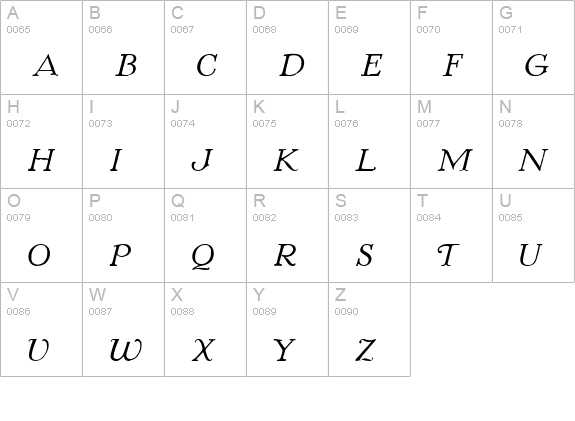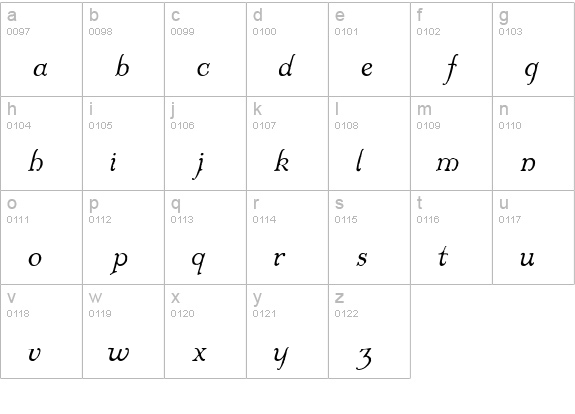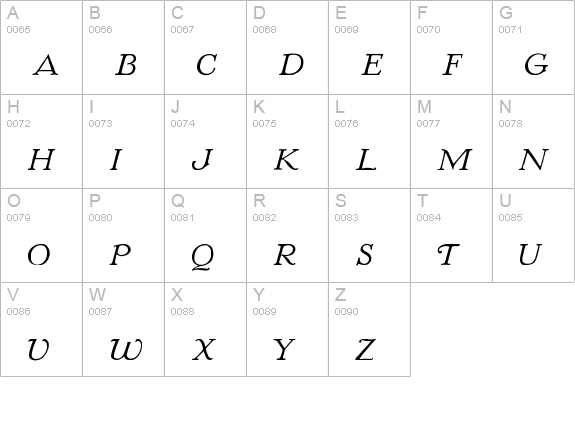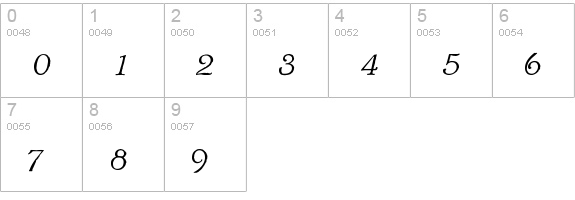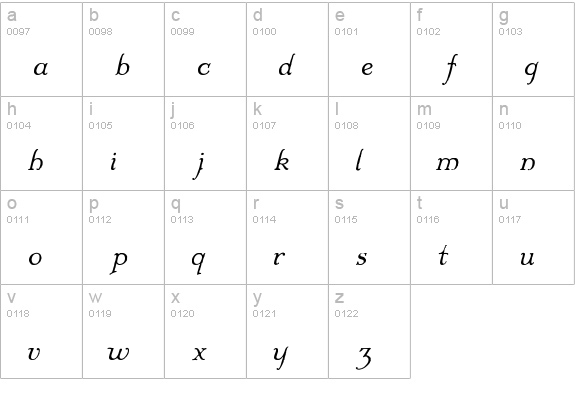
Colwell Italic HPLHS Font Details
Colwell Italic HPLHS is a distinctive, italic variant in the Colwell typeface family \xE2\x80\x94 well suited to design and typography projects.
Introducing Colwell Italic HPLHS font, a stylish and elegant typeface designed to add a touch of sophistication to your projects. This exquisite font features delicate curves and unique letterforms that exude a sense of class and refinement. Colwell Italic HPLHS font is perfect for a wide range of design applications, from invitations and posters to branding and packaging. Its versatility allows it to be used in both formal and casual settings, making it a must-have addition to any designer's toolkit. And the best part? Colwell Italic HPLHS font is completely free to download at FontsMarket.com! So you can elevate your designs without breaking the bank. Don't miss out on this fabulous font - download it today and add a touch of elegance to your projects.